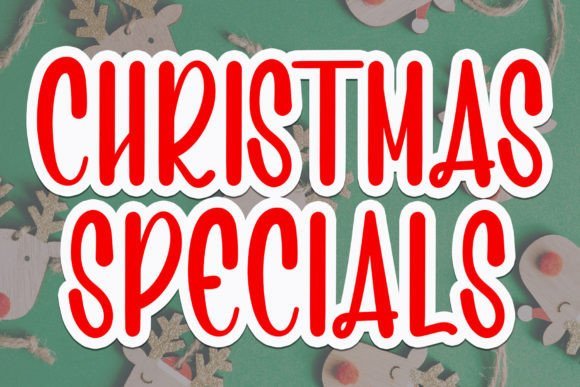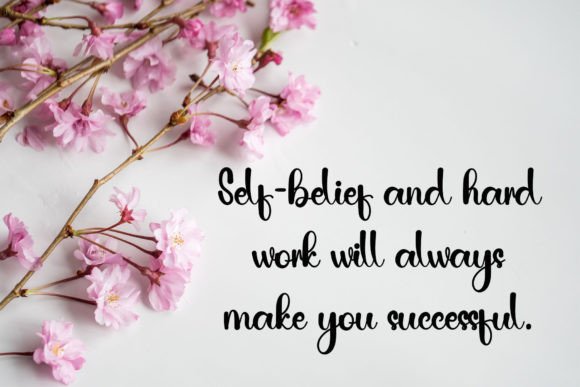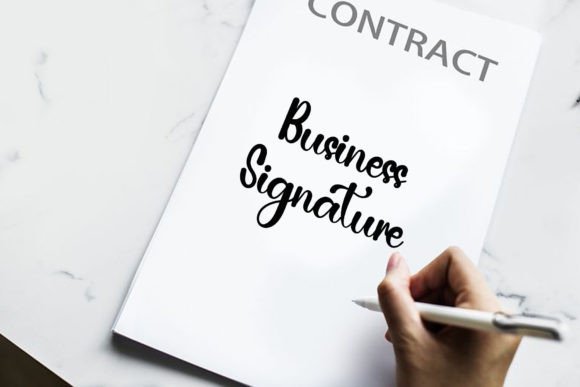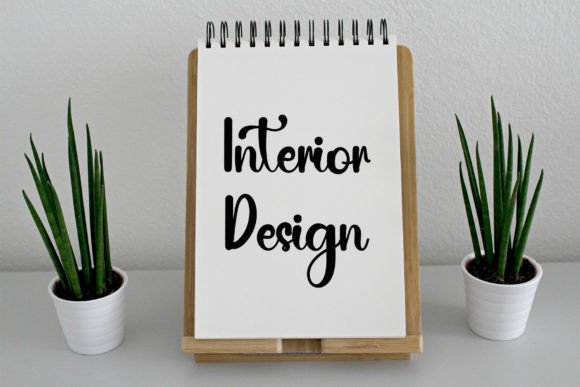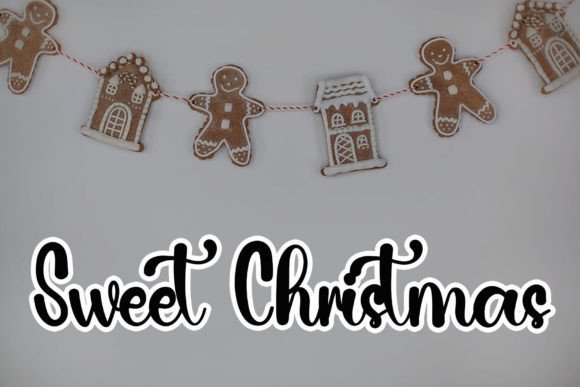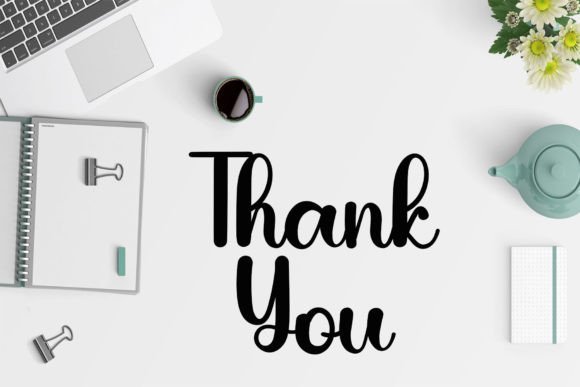
Deck the Halls with Typography: Unwrapping the Magic of Christmas Specials Font
As the holiday season approaches, designers are no doubt itching to create festive and eye-catching projects that capture the essence of Christmas. It’s that time of the year when creativity knows no bounds, and the possibilities are endless. Whether you’re crafting a Christmas card, designing a festive brochure, or creating a holiday-themed website, the right font can make all the difference. That’s where the enchanting Christmas Specials Font comes in – a beautiful and elegant typeface that’s sure to make your projects shine.
With its unique and timeless style, the Christmas Specials Font is a valuable addition to any designer’s toolkit. Its versatility and distinctiveness make it perfect for a wide range of projects, from invitations and menus to social media graphics and advertisements. As a designer, you’ll appreciate the flexibility and creativity that this font offers, allowing you to bring your holiday designs to life in a way that’s both beautiful and memorable.
Key Features of Christmas Specials Font
- Font Family: Christmas Specials is a unique, hand-drawn font designed specifically for the holiday season.
- Unique Characteristics: Features intricate, hand-drawn details and ornaments, making it perfect for creating festive and whimsical designs.
- Font Style: Available in regular, bold, italic, and bold italic styles to cater to various design needs.
Designer Review: Christmas Specials Font
At first glance, the Christmas Specials Font seems like a great addition to any festive project. ✨ The font’s playful, cursive design is perfect for creating a sense of holiday cheer, and the intricate details on each letter make it a standout choice for any designer looking to add some personality to their work.
Some of the key strengths of this font include:
- Unique and eye-catching design that’s sure to grab attention
- Perfect for creating a sense of whimsy and festivity
- Works well for both digital and print projects
However, there are a few limitations to consider: ⚠️ The font may be a bit too ornate for some projects, and the complexity of the design may make it difficult to read for some users. Additionally, the font may not be suitable for projects where a more straightforward, modern design is needed.
Overall, I’d say the Christmas Specials Font is a great choice for designers looking to add some festive flair to their work. While it may have some limitations, the unique design and attention to detail make it a standout choice for holiday-themed projects.
Use the Christmas Specials Font to add a festive touch to your designs, especially during the holiday season.
Creating holiday greeting cards, posters, and invitations.
Designing festive social media graphics and ads.
Adding a holiday theme to your website or blog.